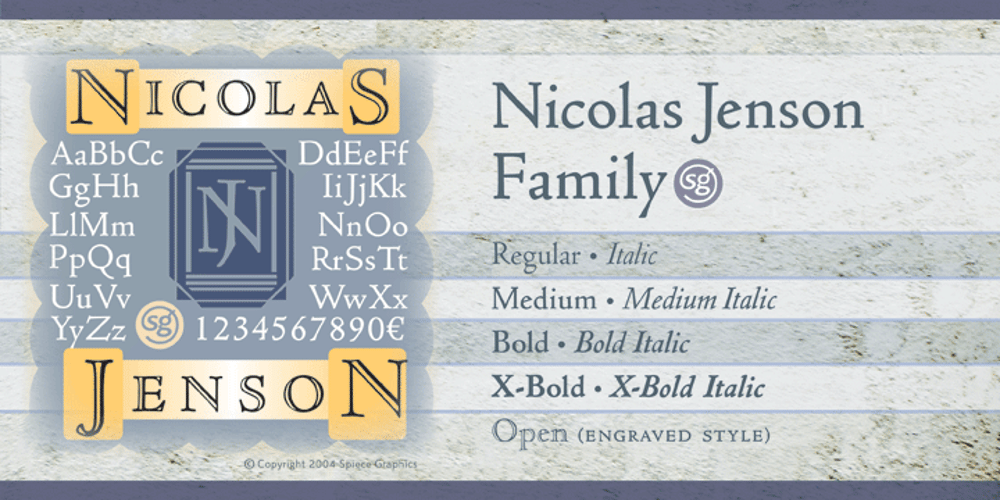
Nicolas Jenson SG
Nicolas Jenson SG font
Nicolas Jenson SG Font Family was designed by Ernst F. Detterer, Robert Hunter Middleton, Jim Spiece and published by Spiece Graphics. Nicolas Jenson SG contains 8 styles and family package options. It was the original work of fifteenth century designer Nicolas Jenson that formed the basis for this roman serif style developed by Ernst Detterer in 1923. Similar in spirit to other early twentieth century revivals such as Centaur, Cloister Old Style, and Italian Old Style, Nicolas Jenson is distinguished by its pristine and delicate nature. A gifted young apprentice to Detterer, Robert Hunter Middleton, greatly expanded the family. And by 1929, bold, italic, and open were part of the Ludlow Foundry’s beautiful Nicolas Jenson Series. It was reintroduced under a new name, Eusebius, in 1941. This digital version includes a new medium and extrabold weight with intermediate small caps and swash alternates throughout the family. There is also a regular expert version with a variety of currency symbols plus a regular petite caps (regular x-height small caps) and old style figures version. Nicolas Jenson is now available in the OpenType Std format. Small caps, old style figures, and swash alternates have all been combined into one style for ease of use. You will also find an additional regular petite caps version included with the regular style. Some new characters have been added as stylistic alternates and historical forms. These advanced features work in current versions of Adobe Creative Suite InDesign, Creative Suite Illustrator, and Quark XPress. Check for OpenType advanced feature support in other applications as it gradually becomes available with upgrades.